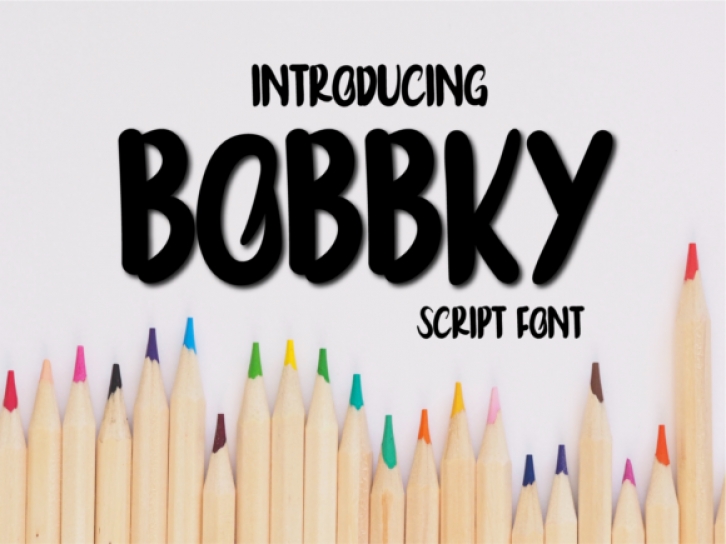
Bobbky is a cool, paint brushed display font featuring the perfect amount of trendiness. Whether you’re using it for crafting, digital designing, presentations or greeting cards making, it’s perfect!